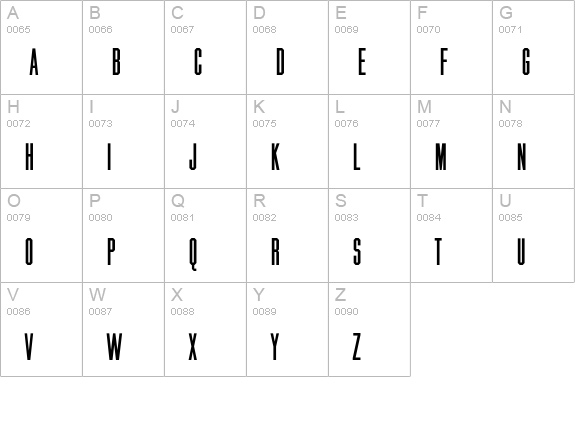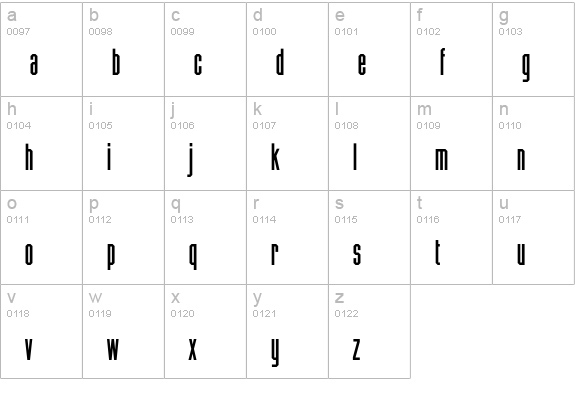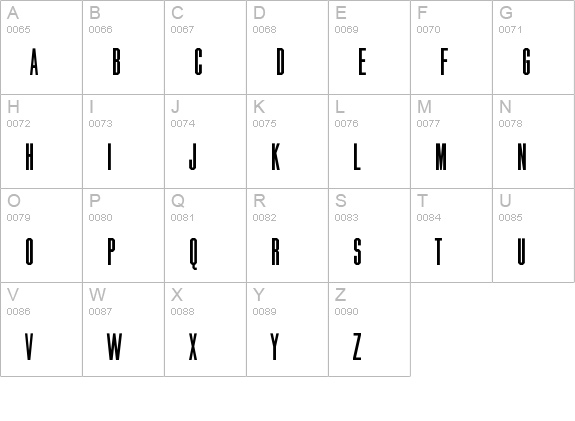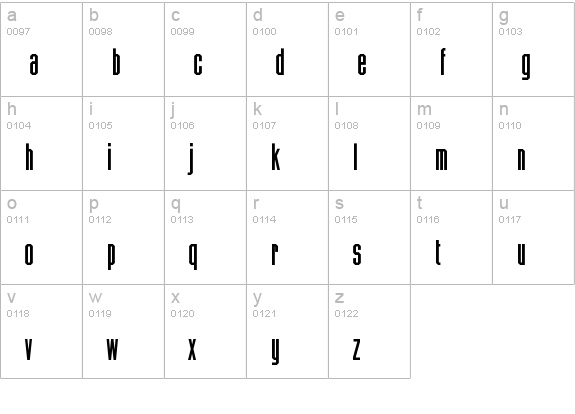
ChamferGothic RR Bold is a strong, high-contrast variant in the ChamferGothic typeface family \xE2\x80\x94 well suited to headlines, attention-grabbing titles, and strong calls-to-action.
ChamferGothic RR Bold font is a modern and sleek typeface that exudes a perfect balance of sophistication and edginess. Its bold and striking appearance makes it ideal for making a statement in headlines, titles, and other prominent text. The clean lines and sharp angles of this font give it a distinct and contemporary look that is sure to catch the eye. What sets ChamferGothic RR Bold apart is not just its stylish design, but also the fact that it is free for personal and commercial use. This means that you can use it in a wide range of projects without having to worry about licensing fees or restrictions. You can easily download ChamferGothic RR Bold font for free at FontsMarket.com. Whether you're working on a branding project, designing a poster, or creating digital content, this font is a versatile and attractive choice that will help you achieve a polished and professional look.